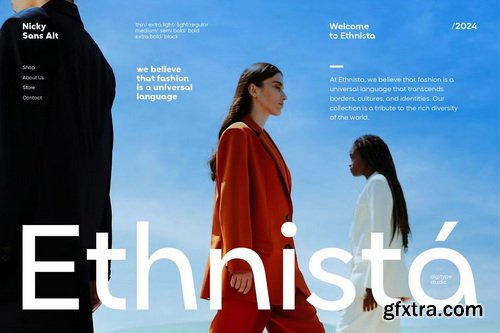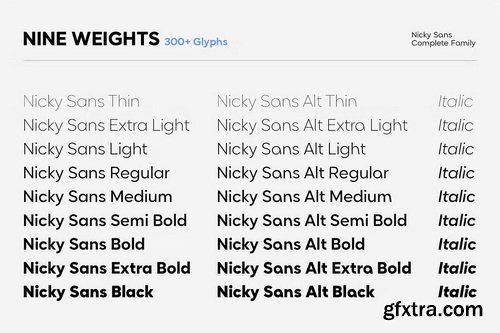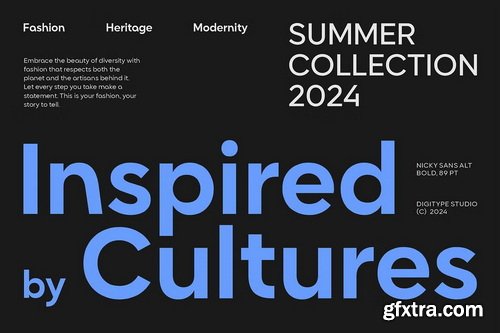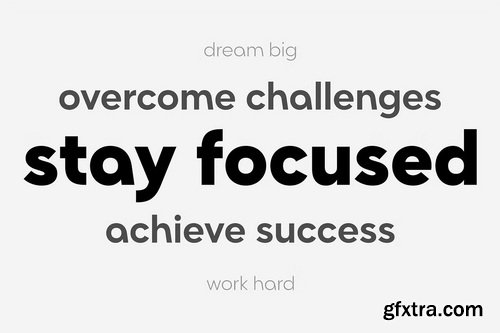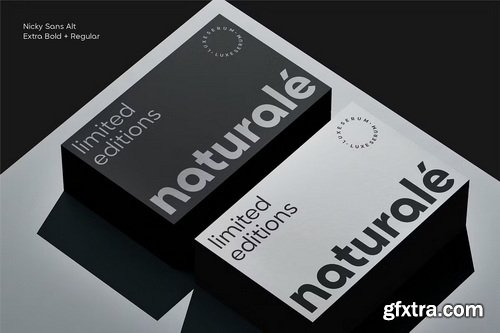
Nicky Sans is a sans serif font family that exudes a modern, clean, and elegant aesthetic. Comprising a total of 27 fonts, this collection is divided into three subfamilies: Nicky Sans, Nicky Sans Alt, and Nicky Sans Italic. Each is designed to offer maximum flexibility for a wide range of design needs. The hallmark of Nicky Sans lies in its balanced letterforms, featuring smooth curves and precise details that create visual harmony. The Alt subfamily introduces an alternative style with unique creative touches, offering more expressive and experimental letterform options.